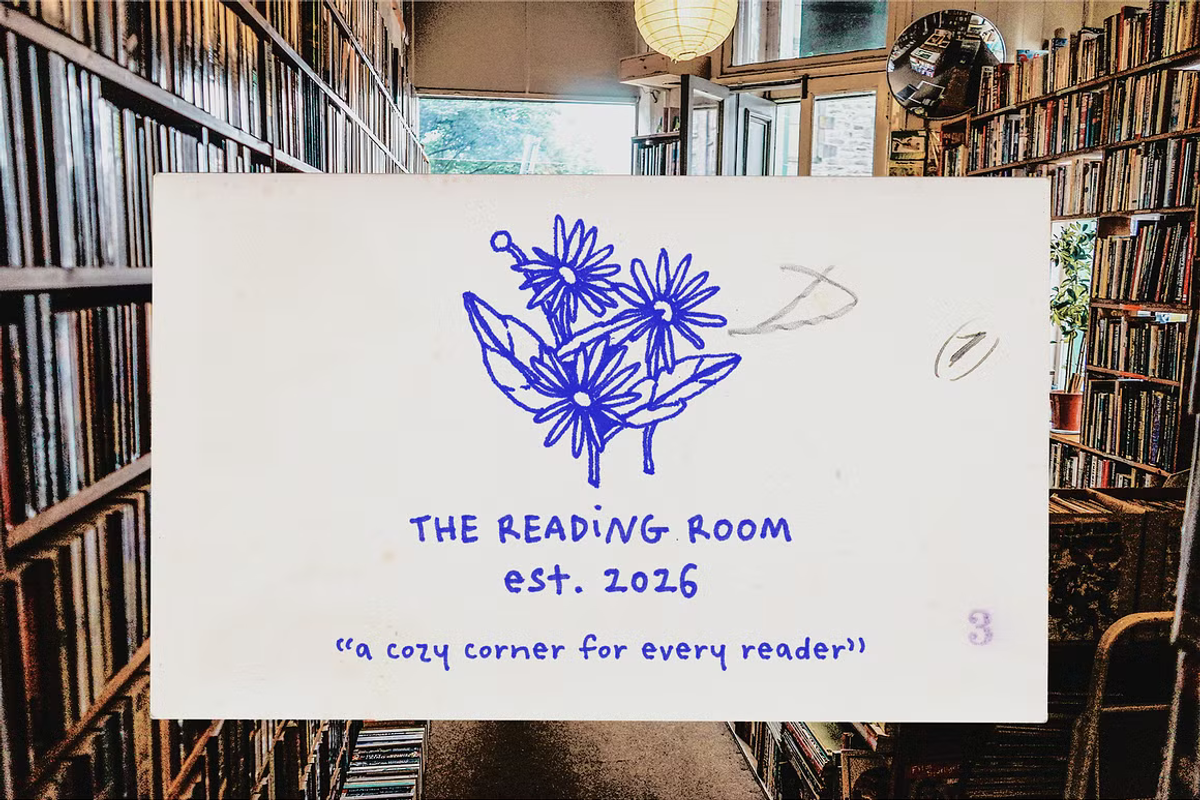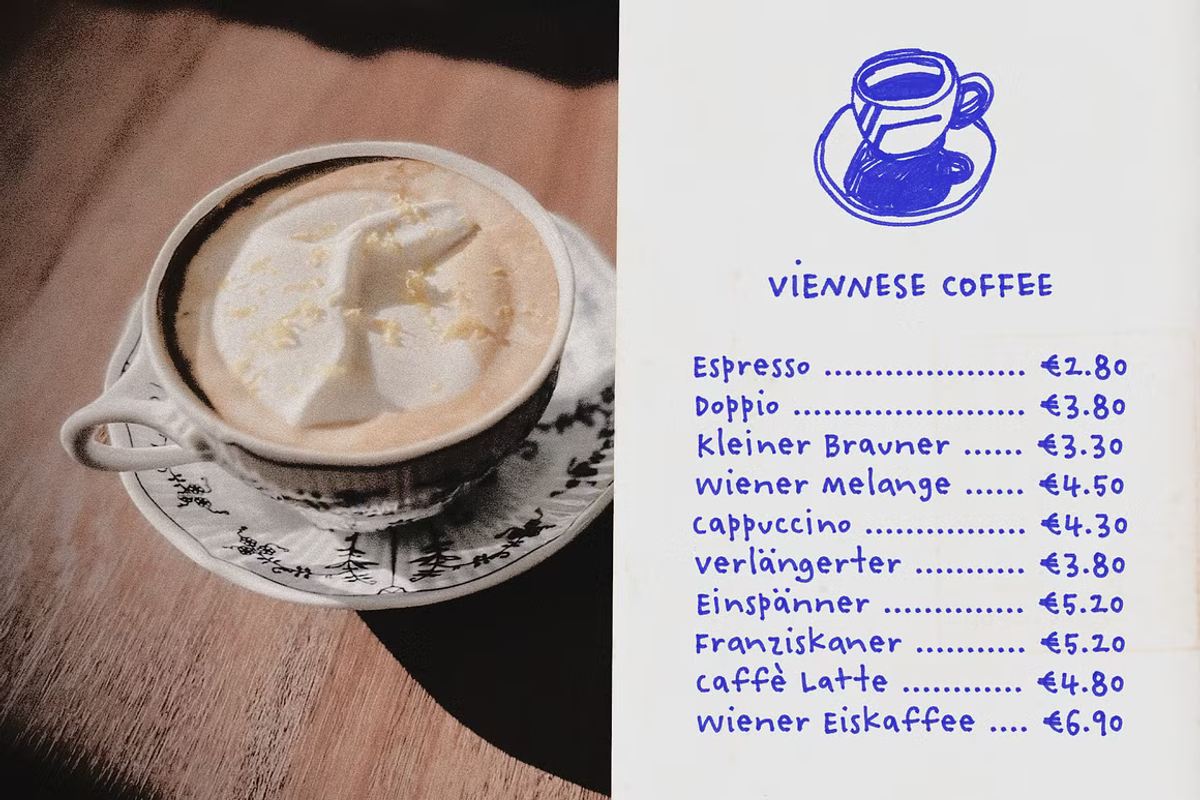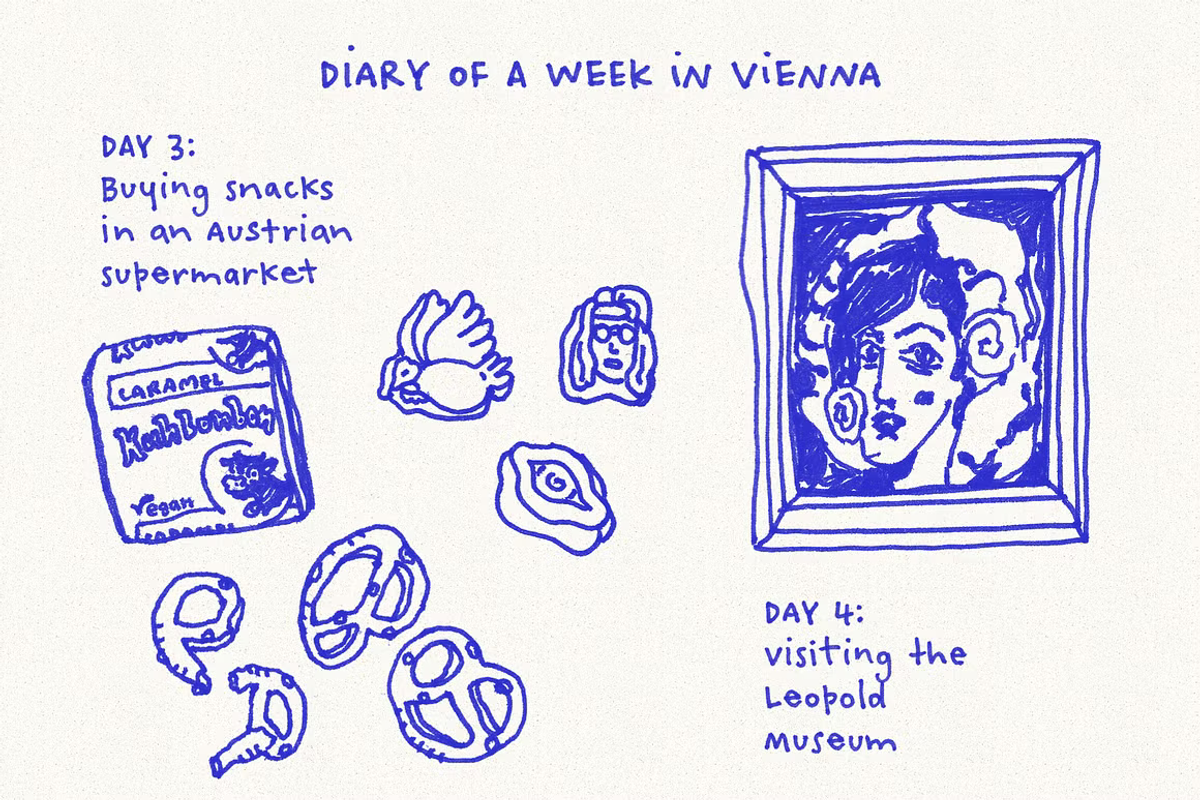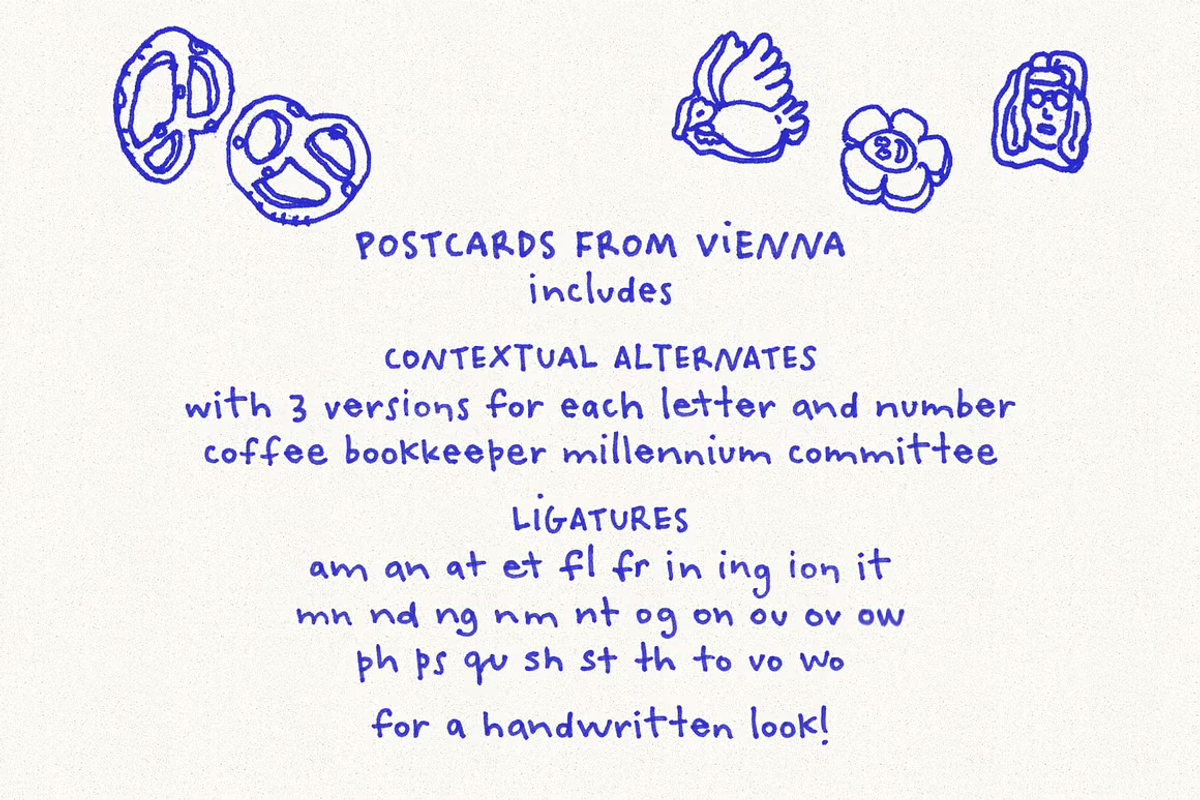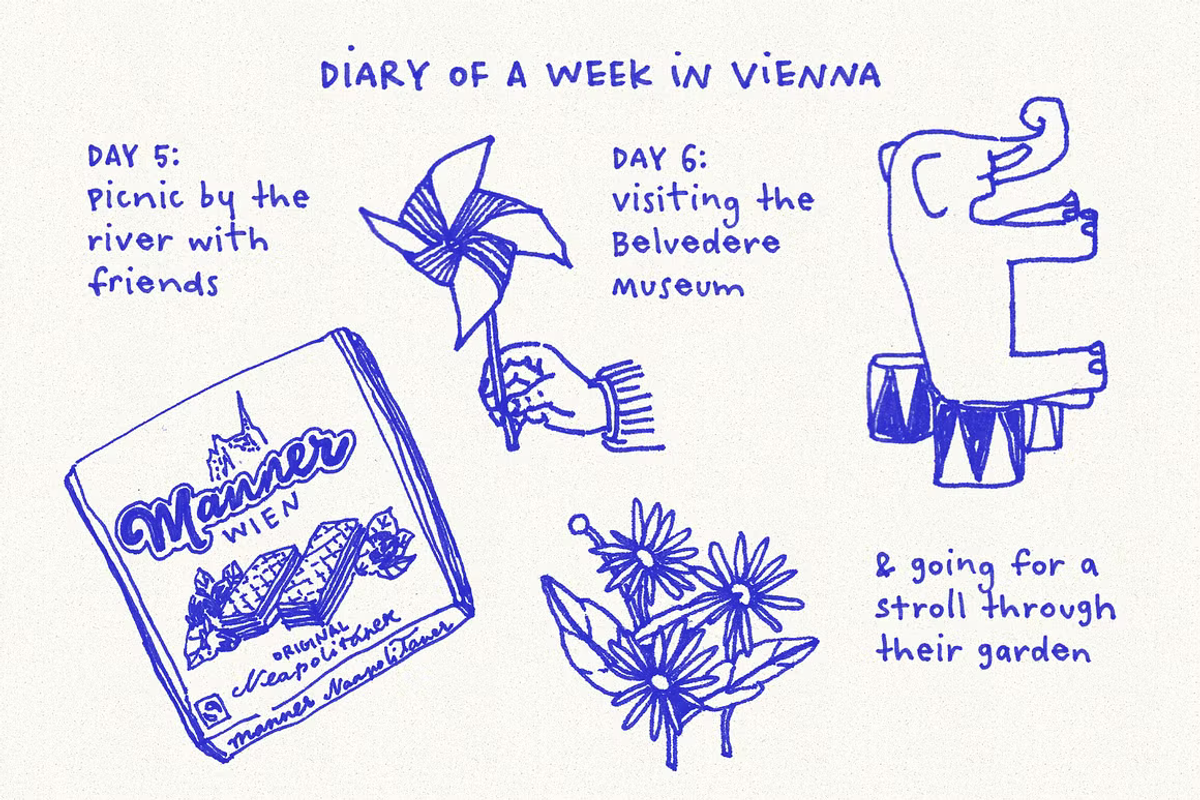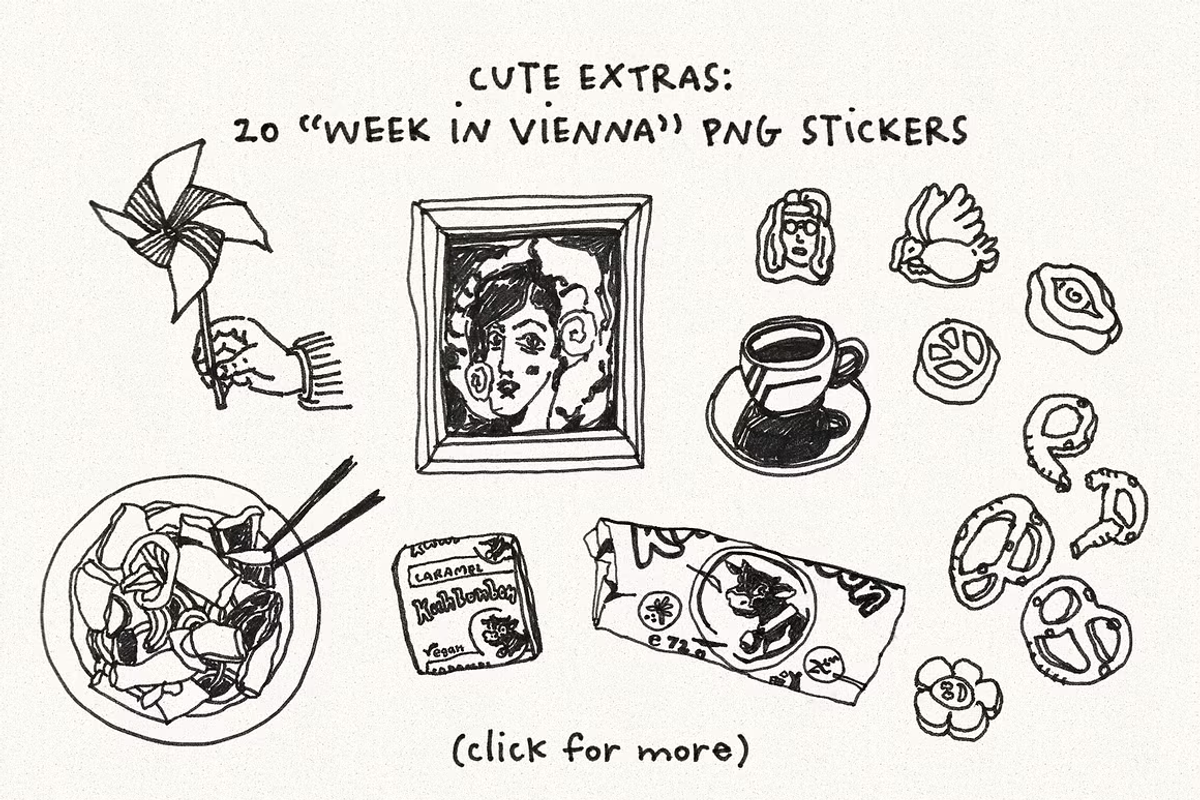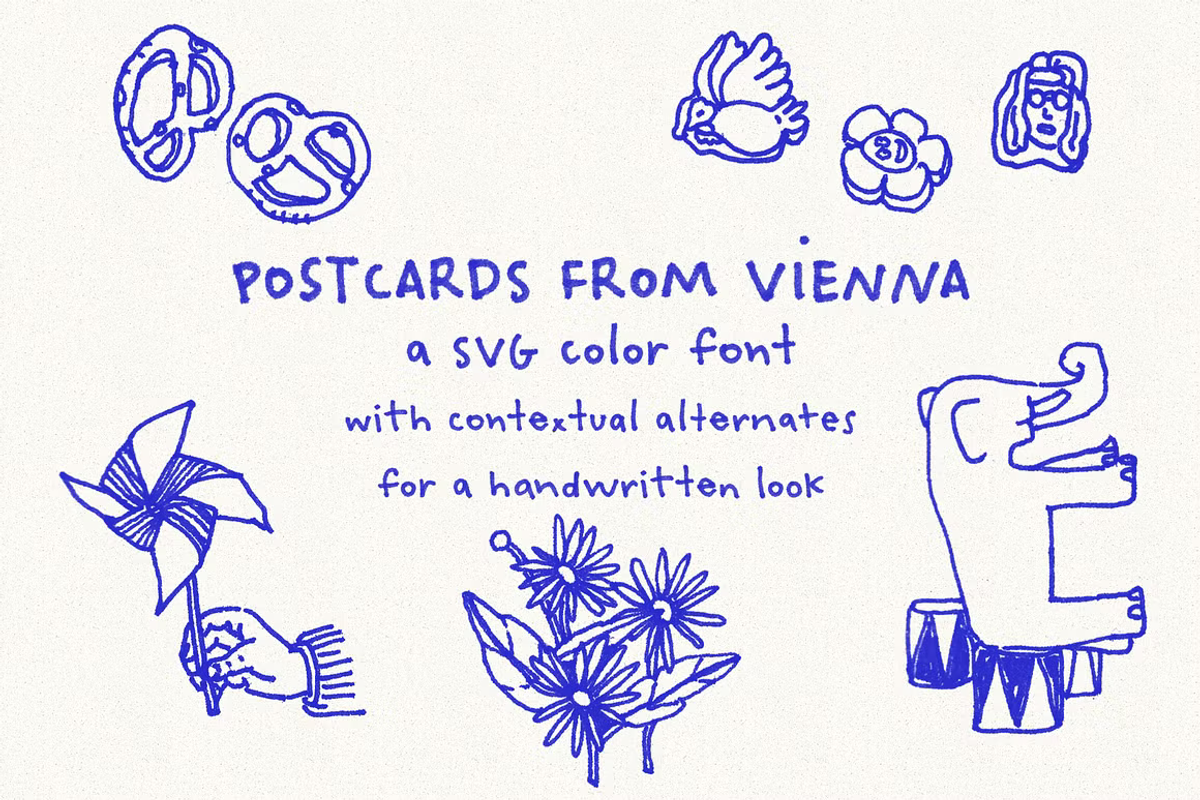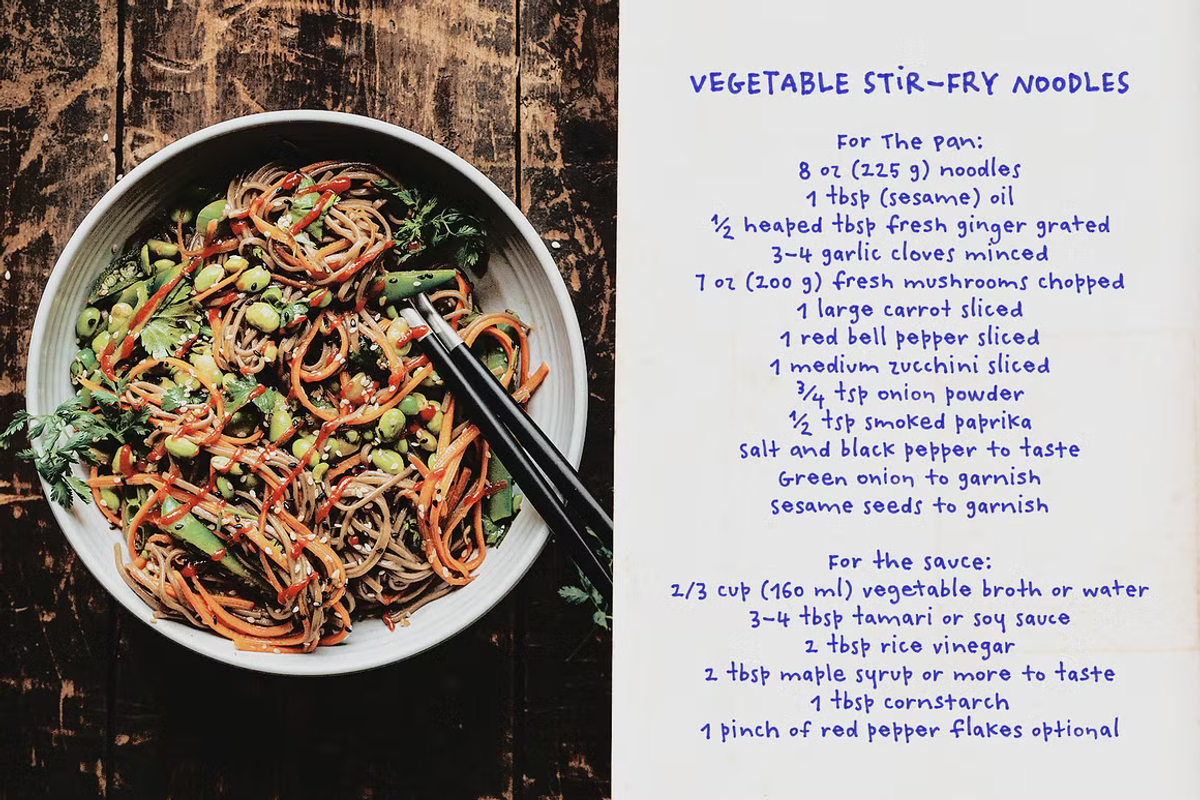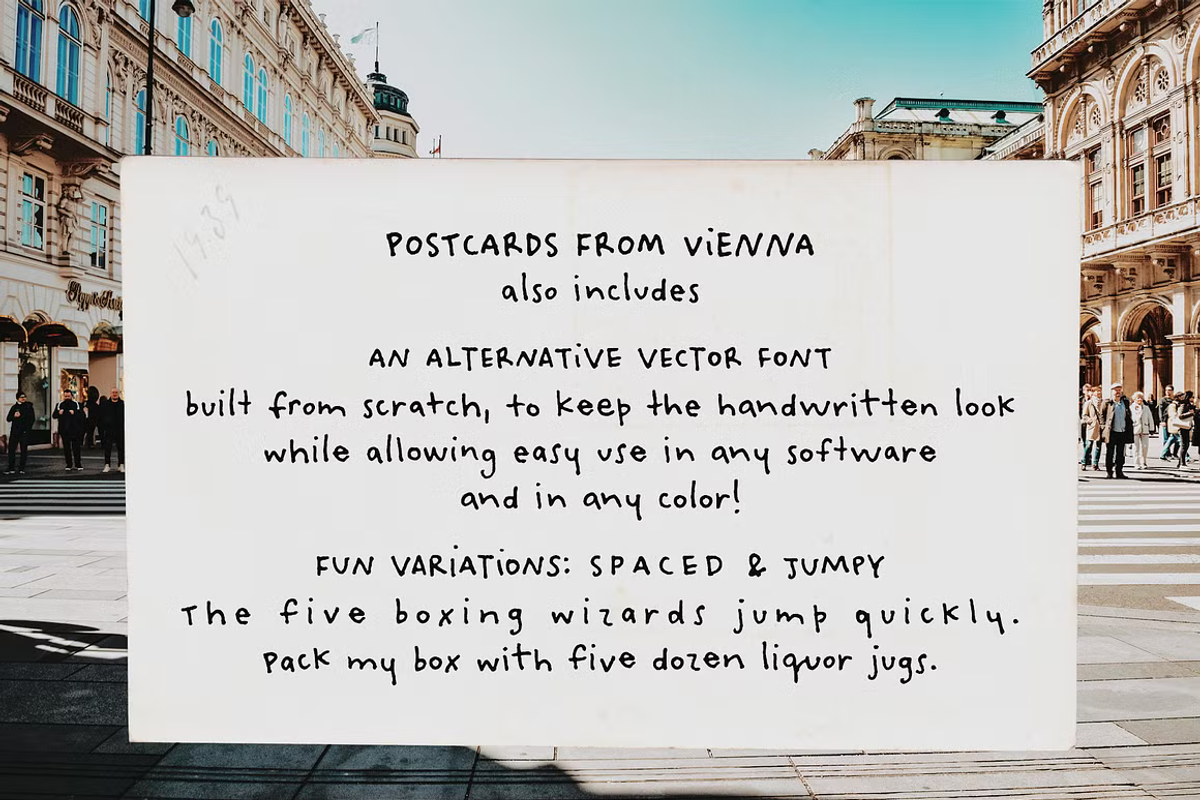
Postcards From Vienna SVG Font
Postcards From Vienna is inspired by the blue pen I bought during a trip to Vienna, which I used to fill my travel sketchbook. I loved its texture so much that I turned my handwriting into an SVG color font, so I could keep using it forever. Now you can too!
This font includes:
SVG and vector versions, both created from scratch from scanned handwriting
Regular, Jumpy and Spaced-out versions for more fun options
Each font includes 3 versions of each letter and number that appear "randomly" using the "contextual alternates" OpenType feature
Perfect for adding a handmade, quirky touch to your designs, Postcards From Vienna is ideal for:
Branding and logos
Social media graphics & quotes
Packaging, labels, and product tags
Posters, flyers, and editorial headings
Stationery, invitation, and greeting card designs